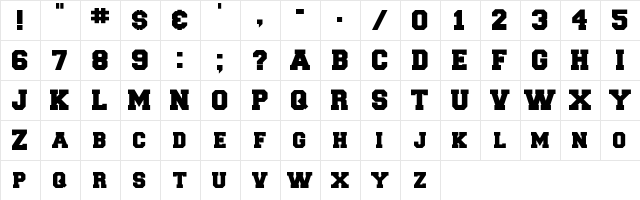
CollegiateBlackFLF Regular
Design Context for CollegiateBlackFLF Typeface
CollegiateBlackFLF offers clean, dependable letterforms without strong stylistic allegiance, making it a practical choice for designers who need flexibility.